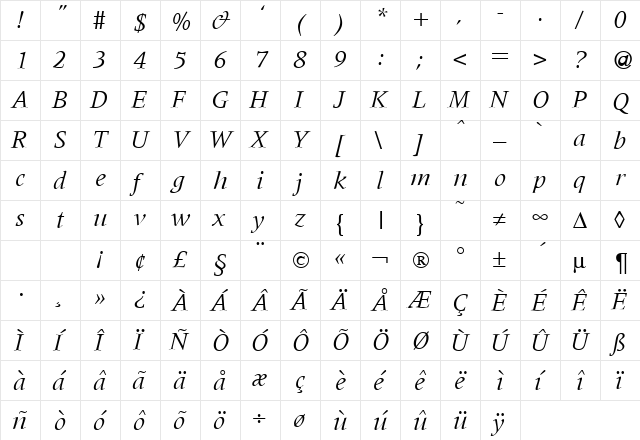
Metaphor RegularItalic
Design Context for Metaphor Typeface
Metaphor takes a measured approach to typography — its balanced proportions and neutral character make it a reliable workhorse for both digital and print work. The dynamic lean of this cut emphasises speed and emphasis in any layout.
Pro Tip: Try Metaphor for annotation and caption copy alongside an upright companion — the contrast in angle creates a dynamic but ordered typographic system.